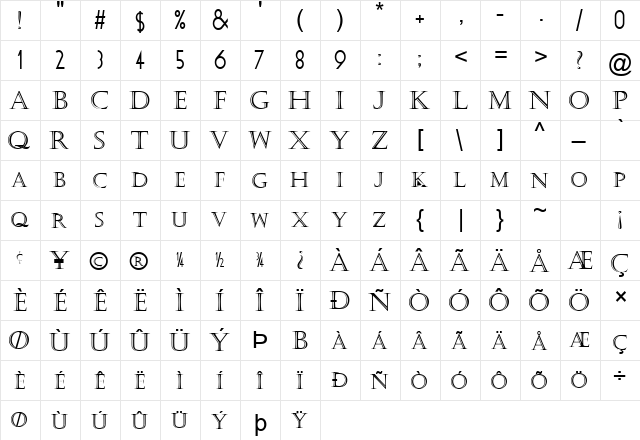
Outline 4 Normal Font Preview
Outline 4 Normal
Outline 4 Normal Font Details
Design Context for Outline 4 Typeface
Outline 4 is built around its visual character rather than neutral utility — its distinctive forms are designed to make an impression at display sizes.